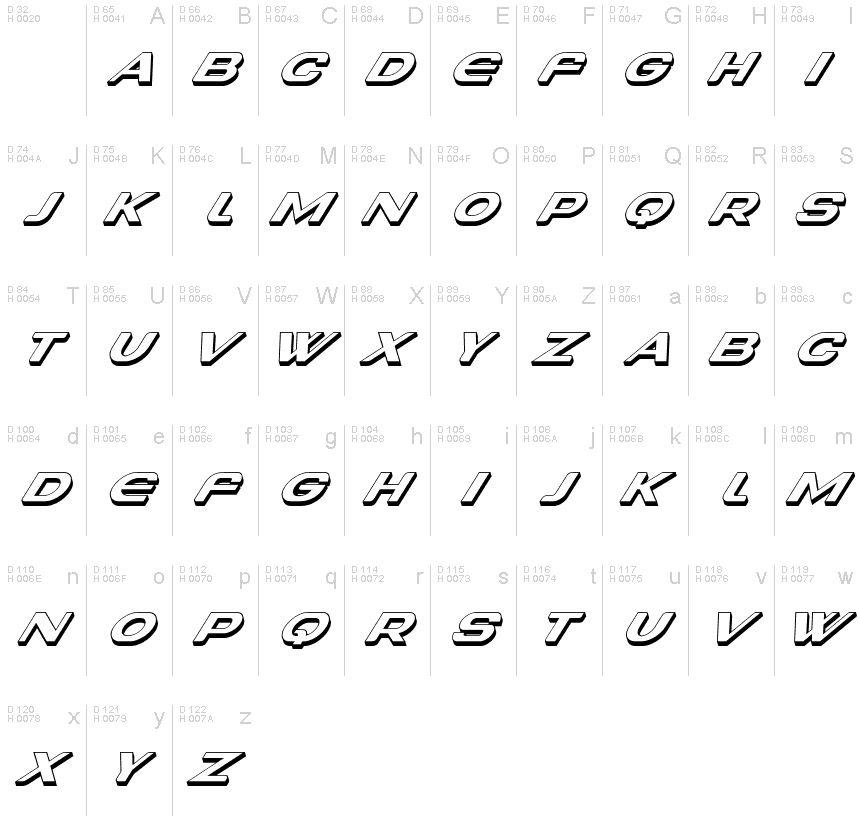
Aerobics Regular
Aerobics, the creation of Vladimir Nikolic, is a bold and captivating display font. With its sleek 3D design and clean lines, it adds a modern touch to any project.
Its expanded width allows for maximum impact, making it ideal for eye-catching headlines and titles. This versatile font is suitable for a wide range of projects including fitness magazines, sports apparel branding, and event posters.
Let Aerobics elevate your designs with its dynamic energy and distinctive style.